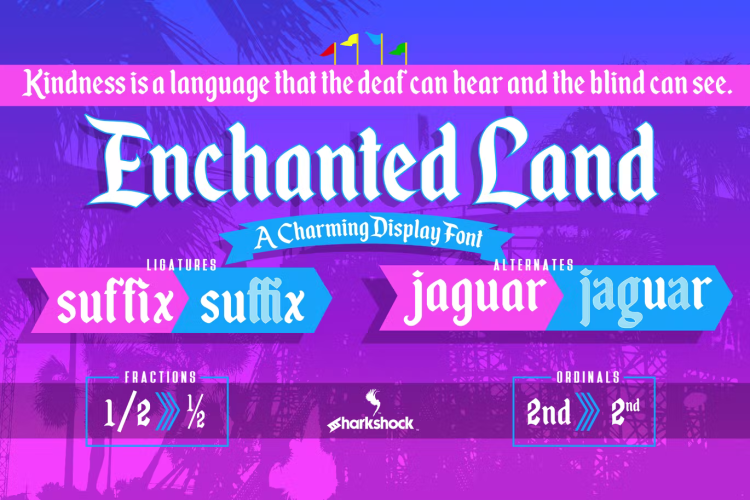
Enchanted Land Font
Welcome to the Enchanted Land where fun has no age limit! This display font features a clean glyph set with many European characters and diacritic support for extended Latin. The whimsical style of the caps flow with consistency and shows up in the numbers and many other marks as well. OTF features like kerning, ordinals, fractions, ligatures, alternates, and proportional numbers and punctuation for uppercase characters are all included. All caps are NOT recommended. Use Enchanted Land for a children’s project, book title, or anywhere you’d like a little magic.
Enchanted Land Font is a Serif Fonts font that brings a professional and versatile look to your projects. Welcome to the Enchanted Land where fun has no age limit!.